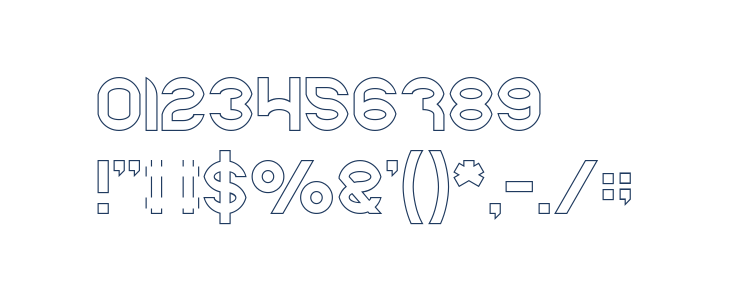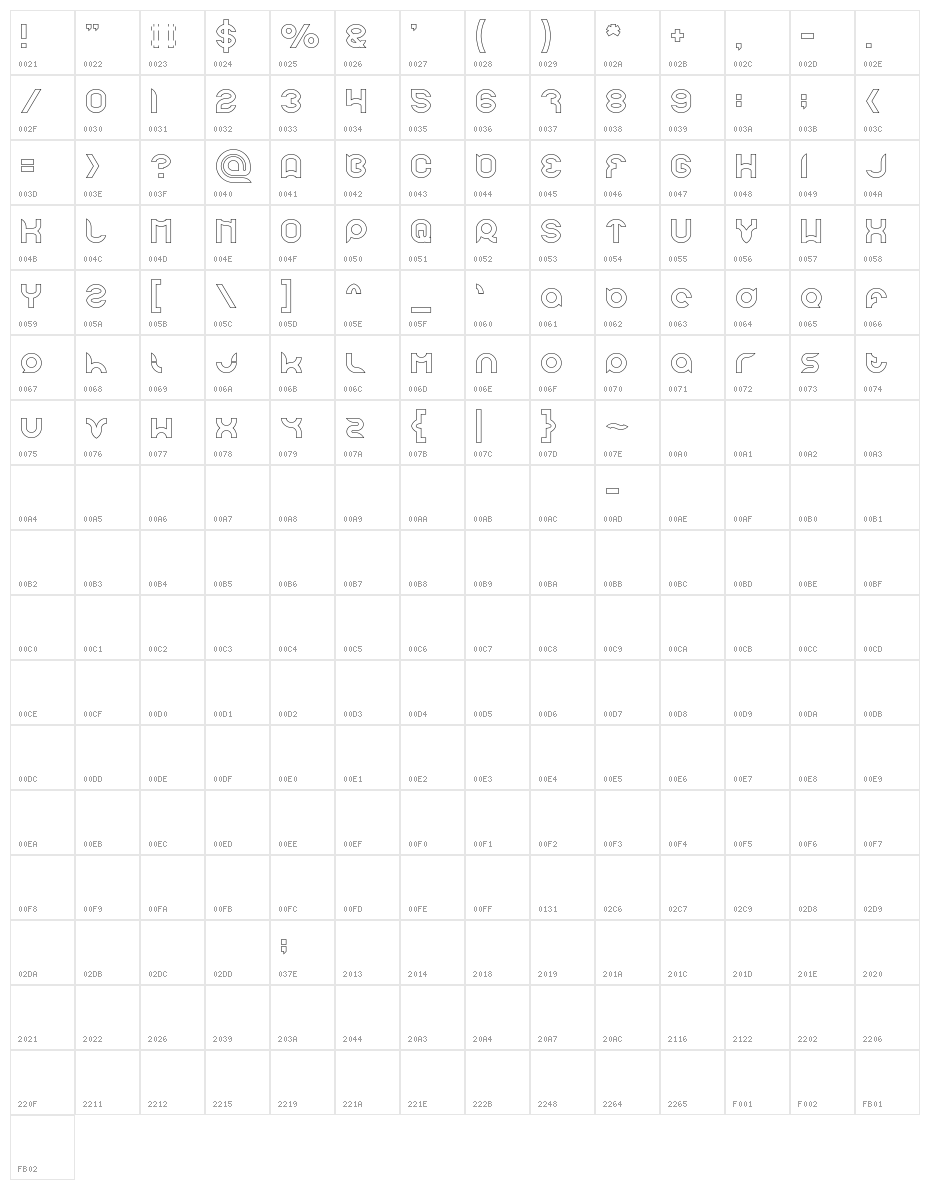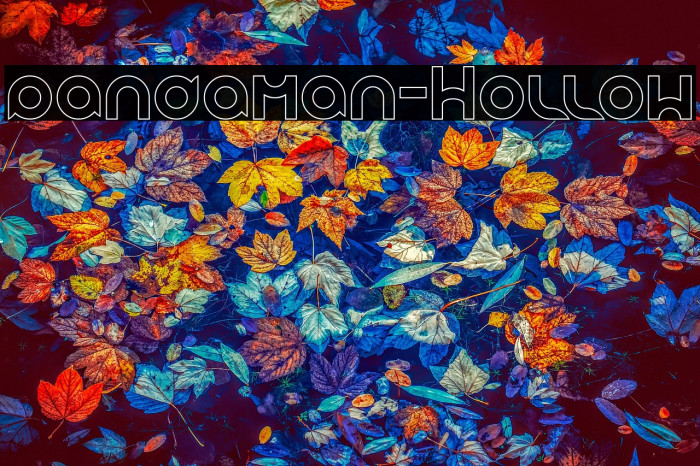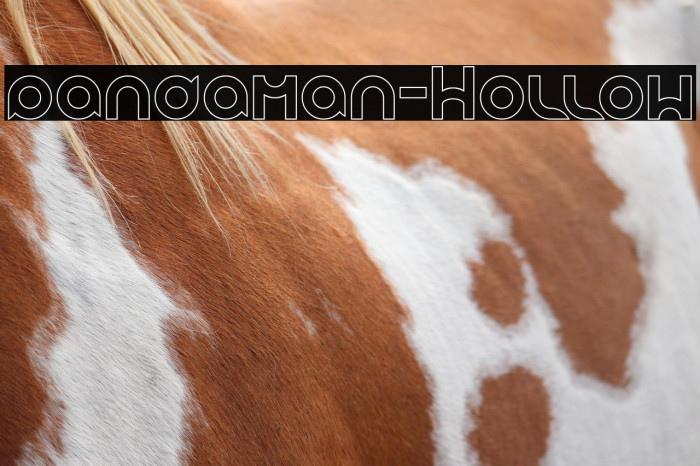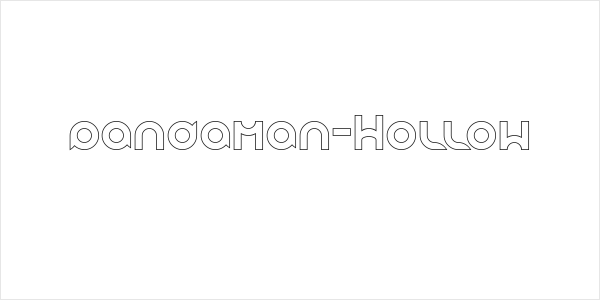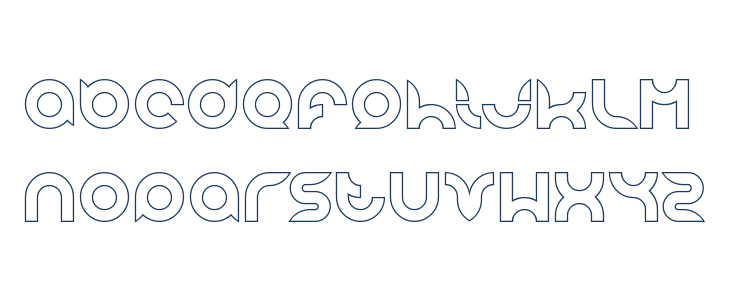
pandaman-Hollow Font
pandaman-Hollow Description
This font features a hollow, geometric design with a futuristic and playful aesthetic. The characters are outlined, creating a sense of openness and lightness. The uppercase and lowercase letters maintain a consistent style, with rounded edges and uniform line thickness. The numbers and special characters follow the same design principles, ensuring a cohesive look across all elements. This font's unique style makes it stand out, offering a modern twist on traditional geometric fonts. The hollow nature of the characters adds a layer of complexity and visual interest, making it suitable for creative and bold design projects.